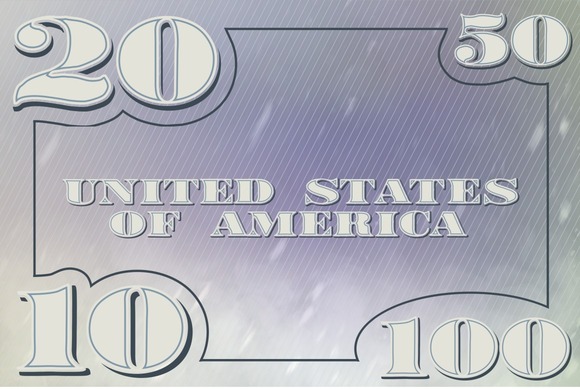
Discover the Elegance of AZ Black Font: A Beautiful Clean Serif Font
Are you a designer or crafter looking for a font that exudes sophistication and elegance? Look no further than the AZ Black Font, a beautiful clean serif font that bears a striking resemblance to the bold style found on dollar bills. In this article, we’ll delve into the world of AZ Black Font, exploring its features, benefits, and uses, as well as provide tips on how to incorporate it into your design projects.
What is AZ Black Font?
AZ Black Font is a serif font that is characterized by its clean lines, classic style, and bold presence. Its similarity to the font used on dollar bills gives it an air of authenticity and trustworthiness, making it perfect for designs that require a sense of professionalism and sophistication. The font is highly legible, even at small sizes, making it versatile for use in a variety of applications, from digital designs to print materials.
Key Features of AZ Black Font
- Clean and Classic Design: AZ Black Font boasts a clean and classic design that is reminiscent of traditional serif fonts.
- Bold and Elegant: The font’s bold style gives it an air of elegance and sophistication, making it perfect for designs that require a sense of luxury and refinement.
- Highly Legible: AZ Black Font is highly legible, even at small sizes, making it versatile for use in a variety of applications.
- Similar to Dollar Bill Font: The font’s similarity to the font used on dollar bills gives it an air of authenticity and trustworthiness.
Benefits of Using AZ Black Font
So, why should you choose AZ Black Font for your design projects? Here are just a few benefits of using this beautiful clean serif font:
- Instant Professionalism: AZ Black Font gives your designs an instant air of professionalism and sophistication, making it perfect for business cards, logos, and other corporate materials.
- Versatility: The font’s high legibility and clean design make it versatile for use in a variety of applications, from digital designs to print materials.
- Elegance and Sophistication: AZ Black Font adds a touch of elegance and sophistication to any design, making it perfect for luxury brands, high-end products, and refined designs.
Uses of AZ Black Font
AZ Black Font is a versatile font that can be used in a variety of applications, including:
- Logo Design: Use AZ Black Font to create bold and elegant logos that exude professionalism and sophistication.
- Business Cards: Add a touch of elegance and sophistication to your business cards with AZ Black Font.
- Brochures and Flyers: Use AZ Black Font to create eye-catching brochures and flyers that grab attention and convey a sense of professionalism.
- Digital Designs: AZ Black Font is perfect for digital designs, including website headers, social media graphics, and more.
Tips for Using AZ Black Font
Here are a few tips for using AZ Black Font in your design projects:
- Use it Sparingly: AZ Black Font is a bold font, so use it sparingly to avoid overwhelming your design.
- Pair it with Other Fonts: Pair AZ Black Font with other fonts to create visual interest and add depth to your design.
In conclusion, AZ Black Font is a beautiful clean serif font that is perfect for designers and crafters looking to add a touch of elegance and sophistication to their designs. Its similarity to the font used on dollar bills gives it an air of authenticity and trustworthiness, making it perfect for designs that require a sense of professionalism and sophistication. With its clean lines, classic style, and bold presence, AZ Black Font is sure to elevate your designs to the next level.